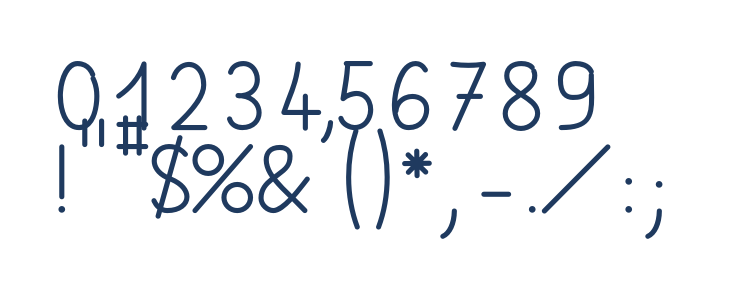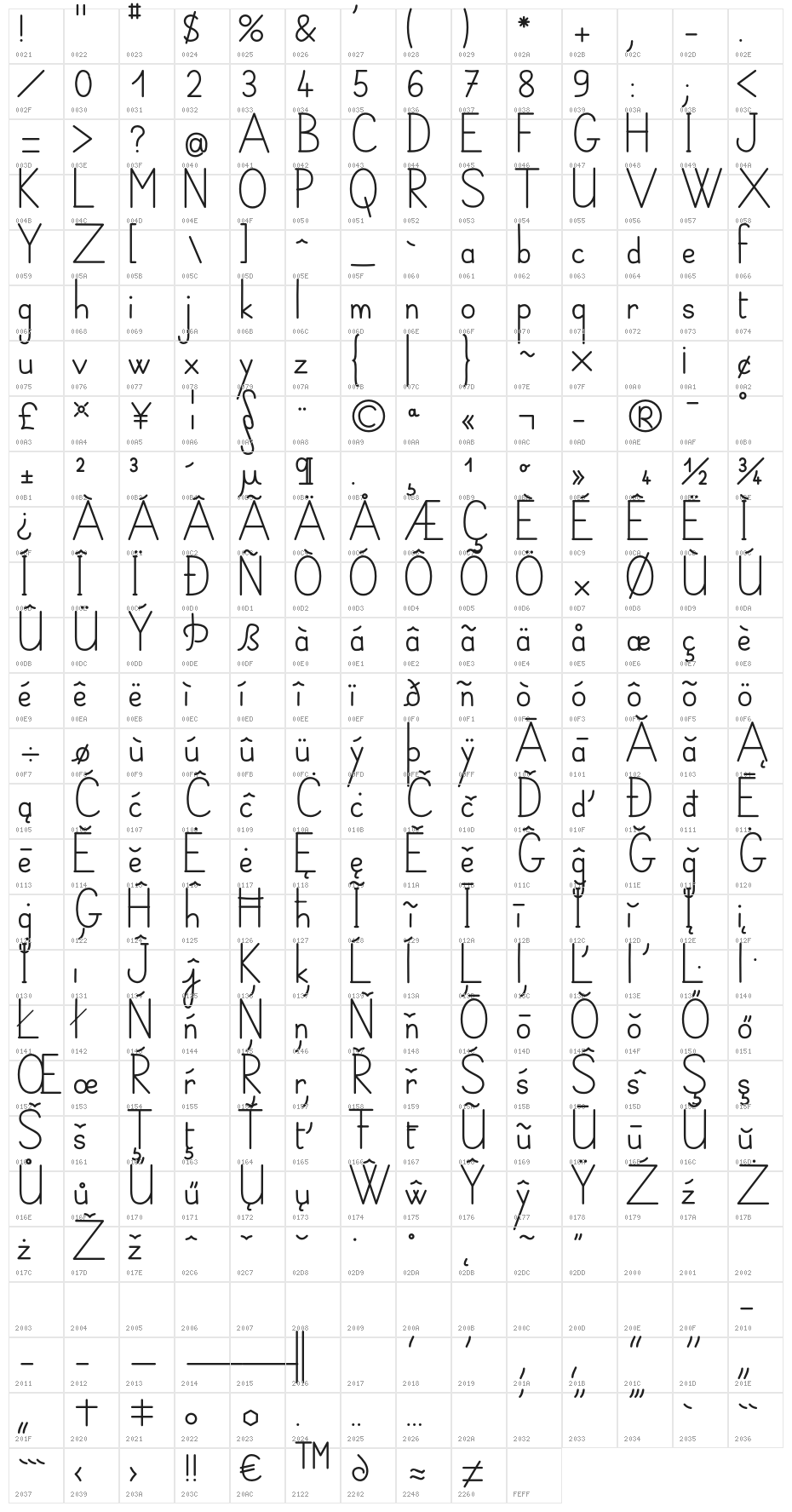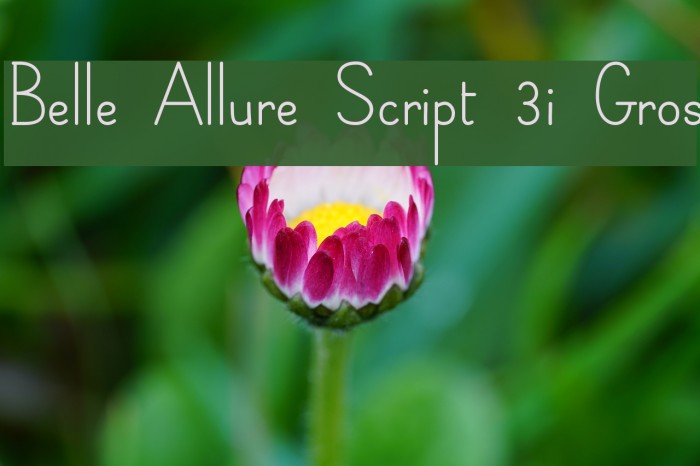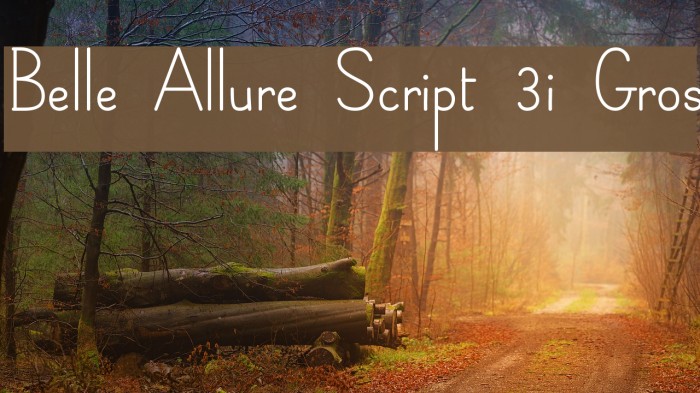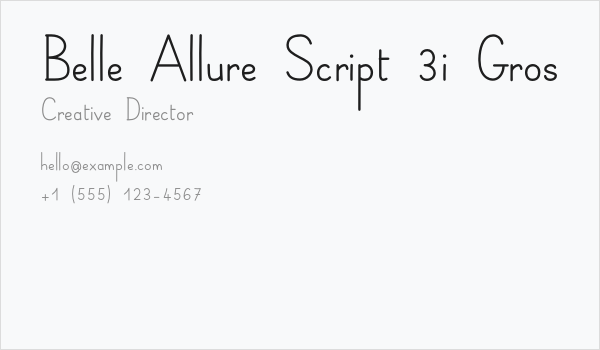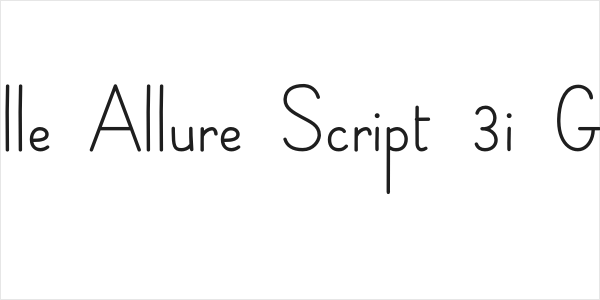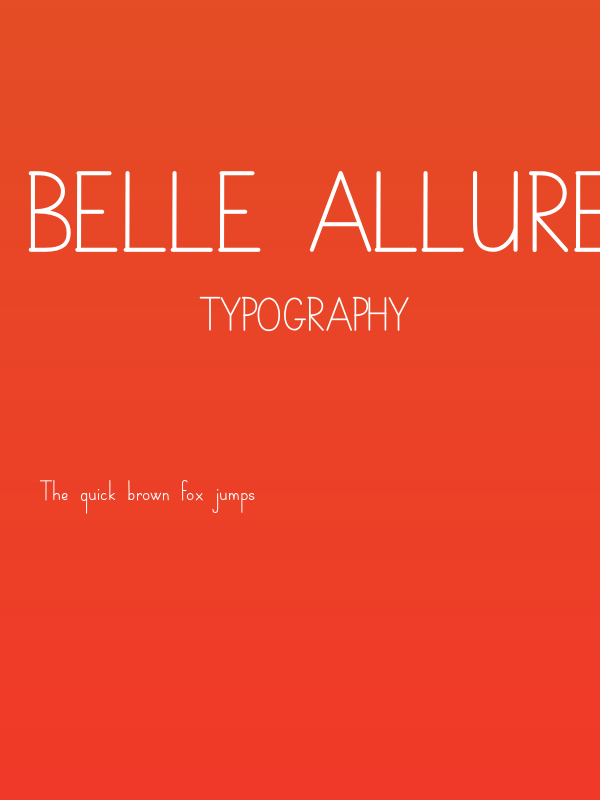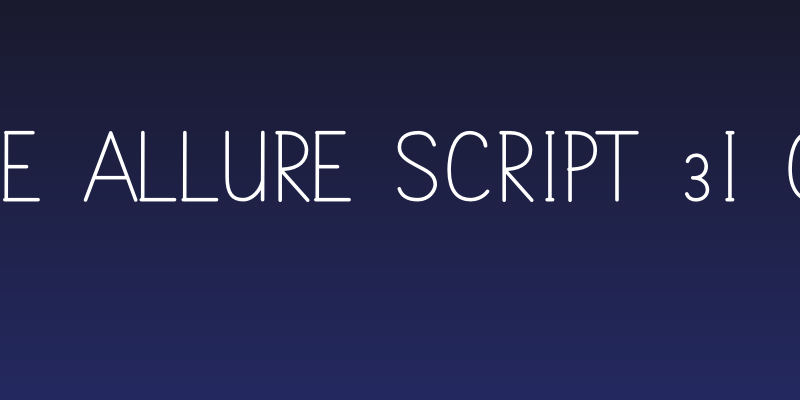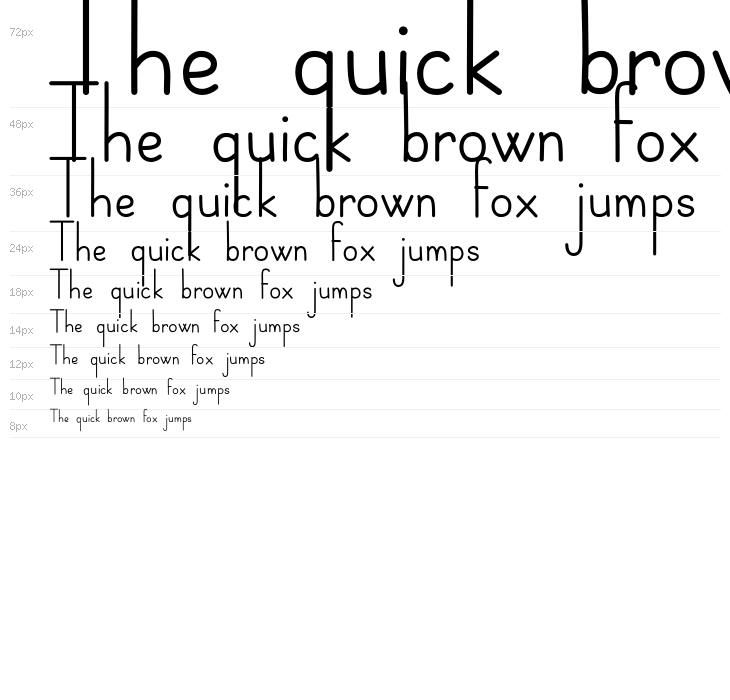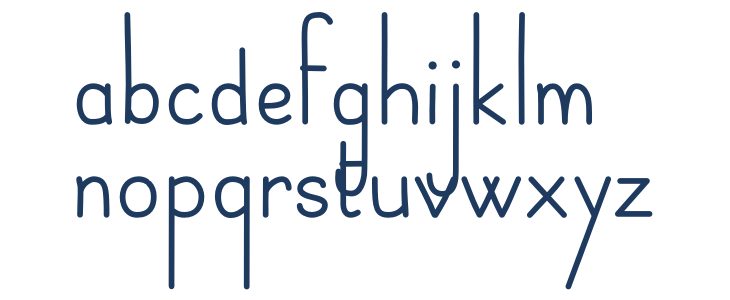
Belle Allure Script 3i Gros Font
Belle Allure Script 3i Gros Description
This font features a clean and modern sans-serif style with a playful touch. The uppercase letters are tall and slightly narrow, giving a sleek and elegant appearance. The lowercase letters maintain a consistent height and are rounded, which adds a friendly and approachable feel. The numerals are clear and easy to read, with a uniform thickness that complements the overall design. Special characters are well-integrated, maintaining the font's cohesive look. The font's simplicity and clarity make it versatile for various design applications.